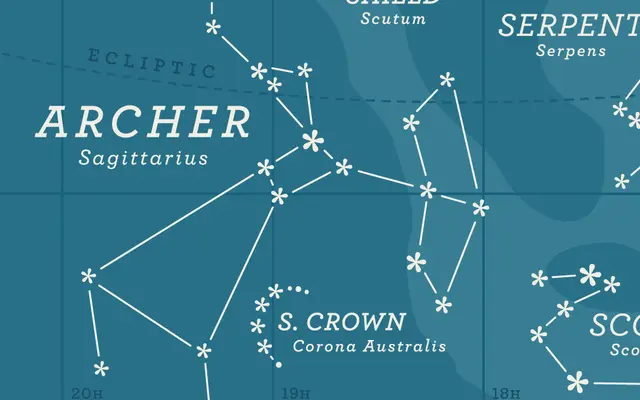
Archer
Hoefler & Co · Tobias Frere-Jones, Jonathan Hoefler · 2008
Archer specimen from Hoefler & Co
A geometric slab serif by Tobias Frere-Jones and Jonathan Hoefler, drawn for Martha Stewart Living, with ball terminals and a proper italic that warm the form for editorial and brand work.
A geometric slab serif by Tobias Frere-Jones and Jonathan Hoefler, originally commissioned for Martha Stewart Living and released for public license in 2008. Archer pairs the rational geometry of mid-century slabs with ball terminals and a drawn italic, giving it the friendliness of a magazine masthead rather than the engineering of an old Rockwell. Seven weights from Hairline to Bold with matching italics, plus Screensmart for UI and Office for documents. Used across magazines, packaging and identity work, including high-profile turns at Wells Fargo and on Barack Obama's 2008 campaign collateral.
H&Co classify Archer as a geometric slab serif in the tradition of mid-twentieth-century slabs like Memphis and Rockwell, but warmed with ball terminals and a true italic rather than a sloped roman. Originally commissioned for Martha Stewart Living.